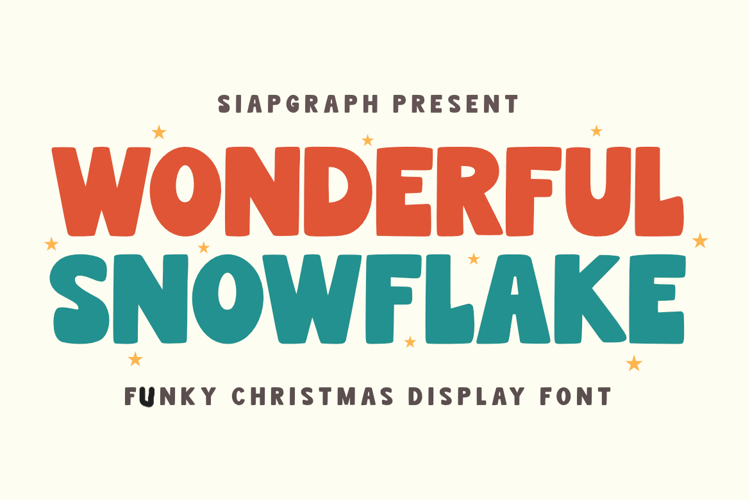
Wonderful Snowflake - Funky Christmas Font
Wonderful Snowflake is a funky, playful, and chunky display font inspired by the cozy, vibrant, and festive energy of a retro Christmas. With its thick, rounded curves and cheerful personality, it captures the nostalgia of vintage holiday illustrations and seasonal cheer.